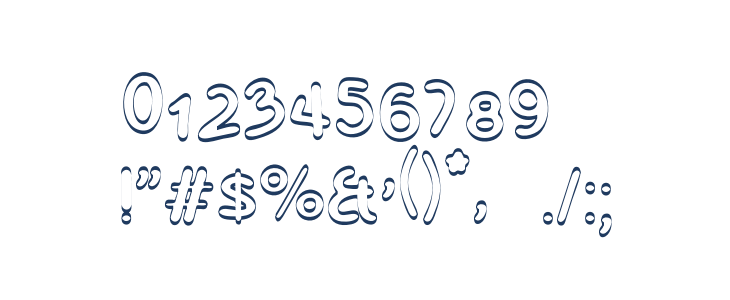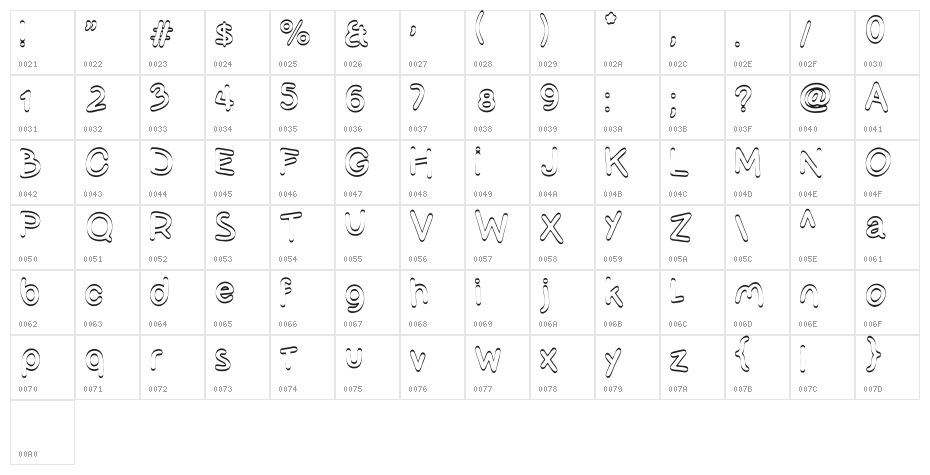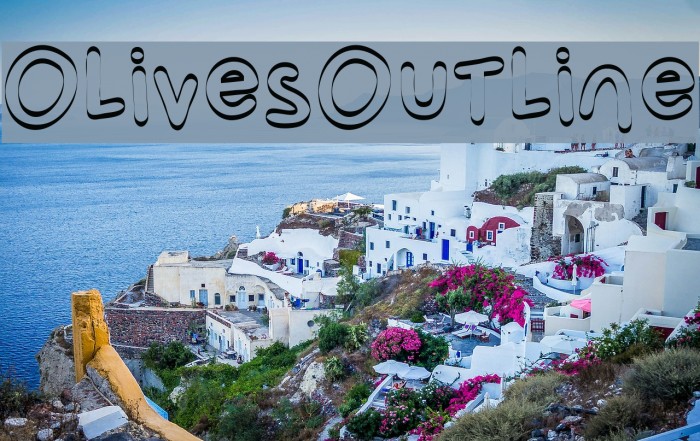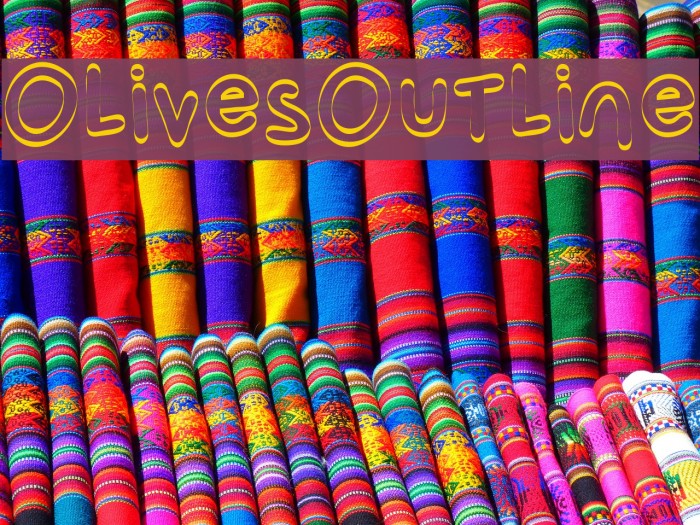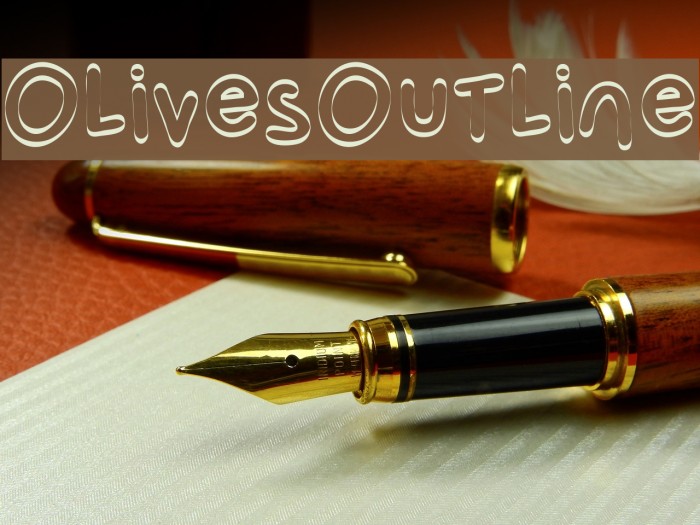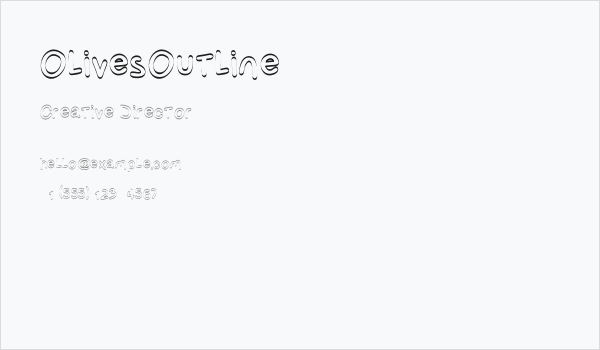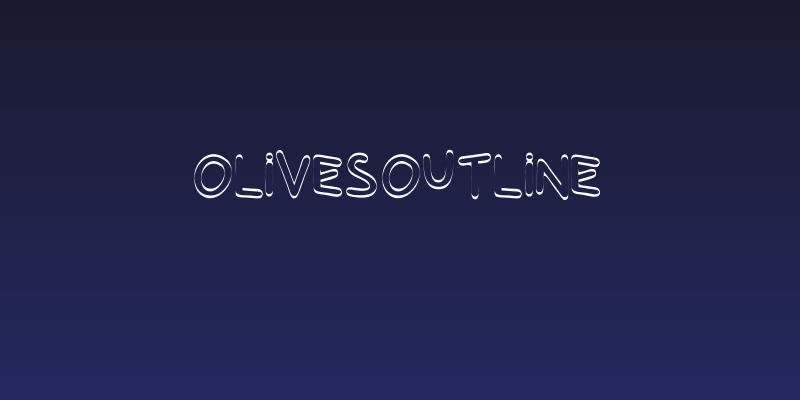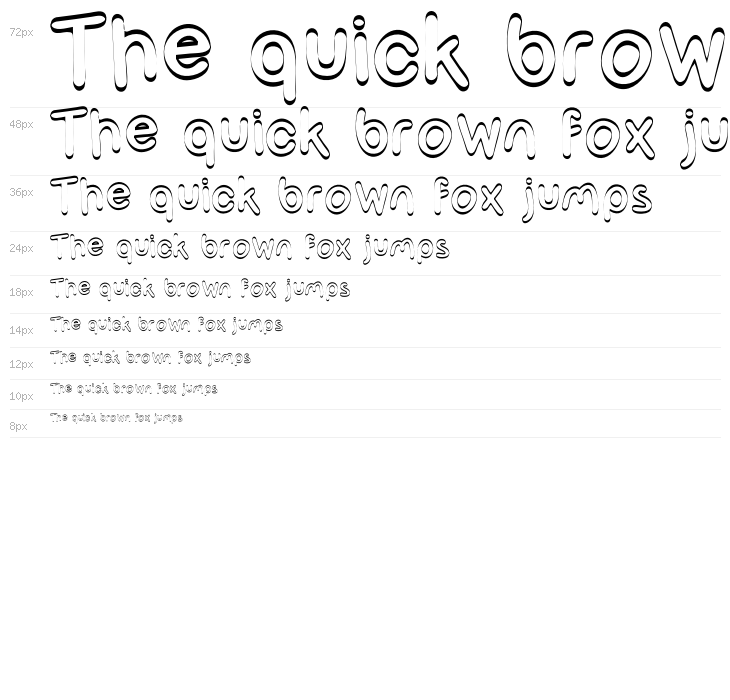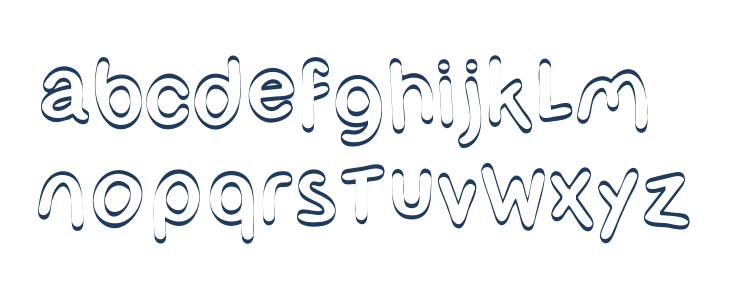
OlivesOutline Font
OlivesOutline Description
This playful and unique font features an outlined style with a bold, rounded appearance. Each character is defined by a thick outer line, creating a hollow effect that gives the text a light and airy feel. The letters are evenly spaced, maintaining a consistent flow across both uppercase and lowercase alphabets. The numbers and special characters follow the same design, ensuring a cohesive look. This font's distinct style makes it stand out, perfect for creative projects that require a touch of whimsy and fun.
| Proposed Projects | Ideal for children's books, playful branding, posters, and creative digital designs. |